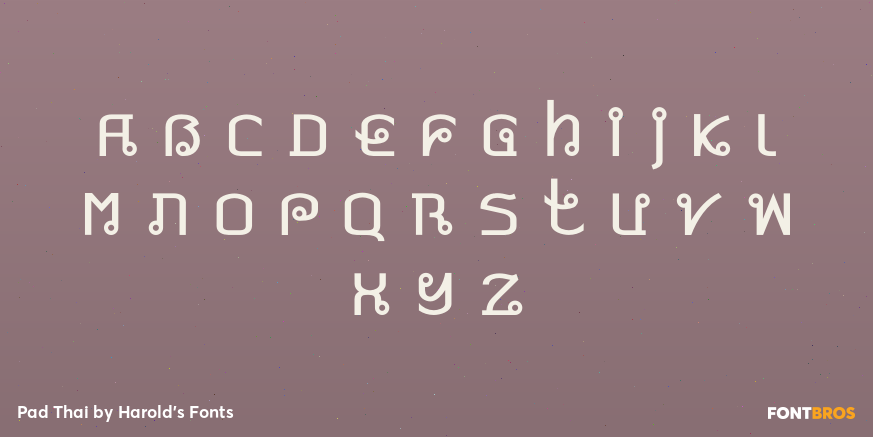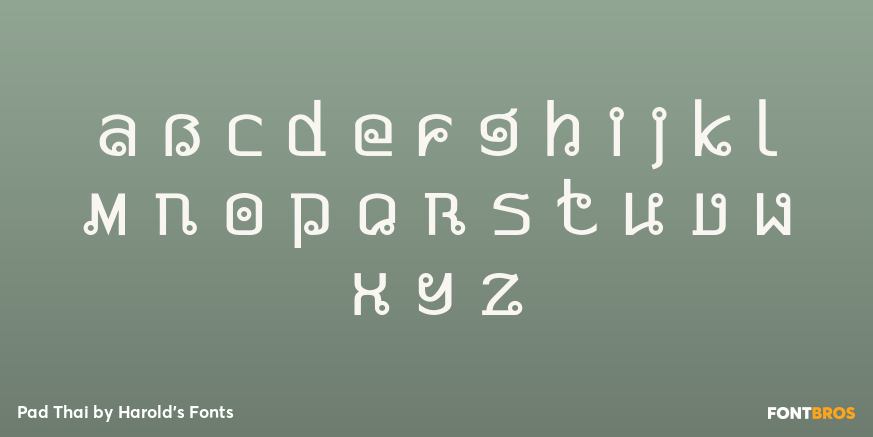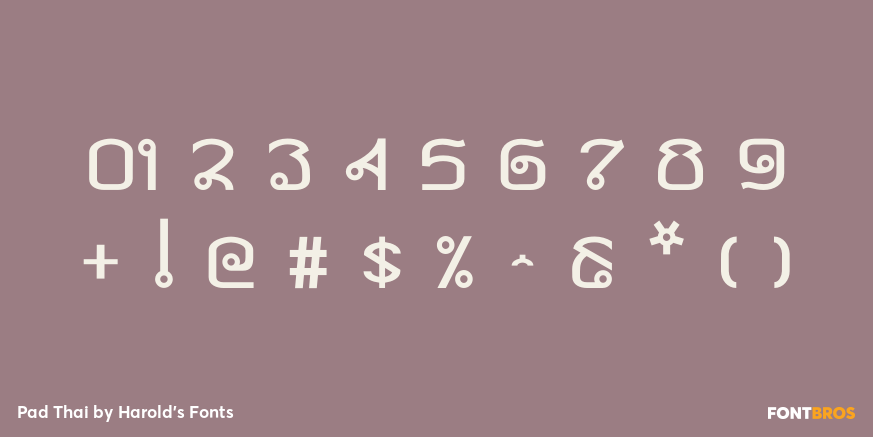
Pad Thai
Font Family by Harold's Fonts
PAD THAI is my attempt at a Roman-alphabet font that simulates the look of Thai script. The striking texture of Thai script comes from the many small loops, the single case, and the generous application of diacritic marks. This is what I’ve tried to suggest with this font.
When using the PAD THAI font, use lots of åcçèñt márks even if you don’t need them for a more Thai texture. There are many beautiful and intricate Thai fonts; I used a very simple one (Ayuthaya) as my model so I could see the structure of the characters better. If you need to pair PAD THAI with a real Thai font, use Ayuthaya.
PAD THAI is named for the famous and delicious dish of noodles, chicken, tofu, peanuts, and spices.